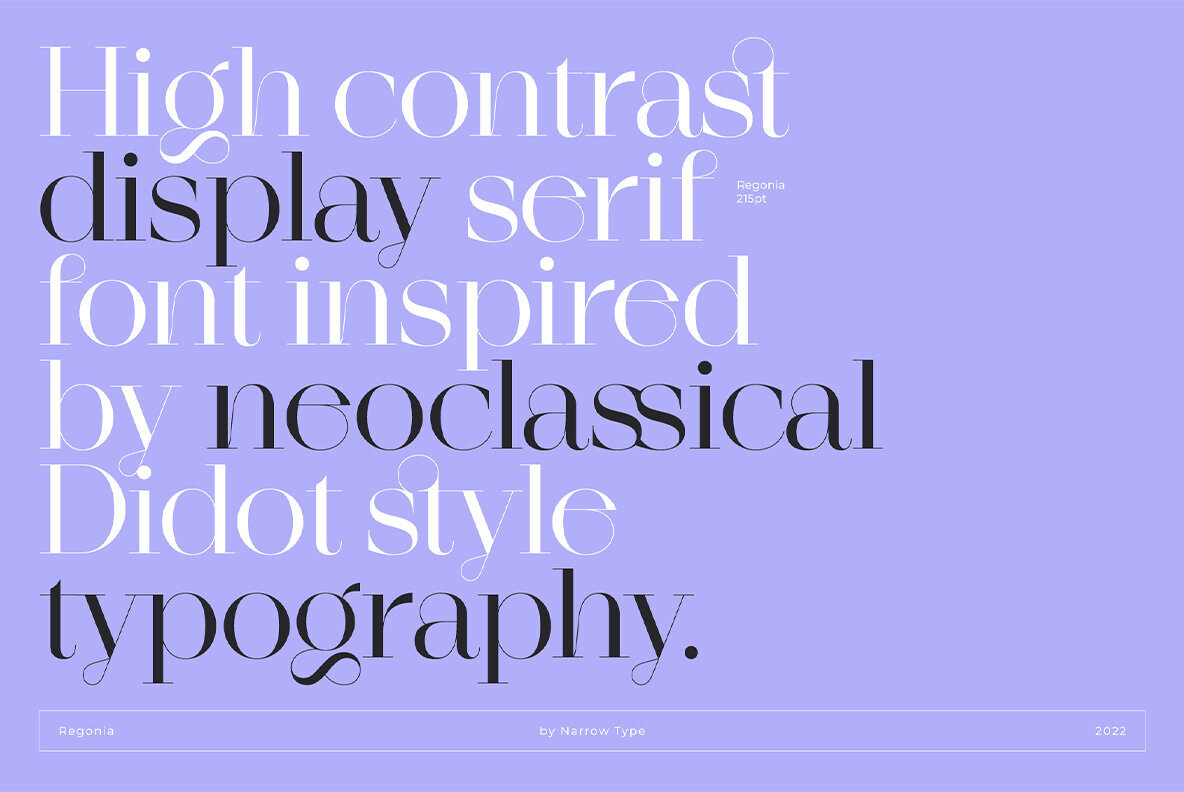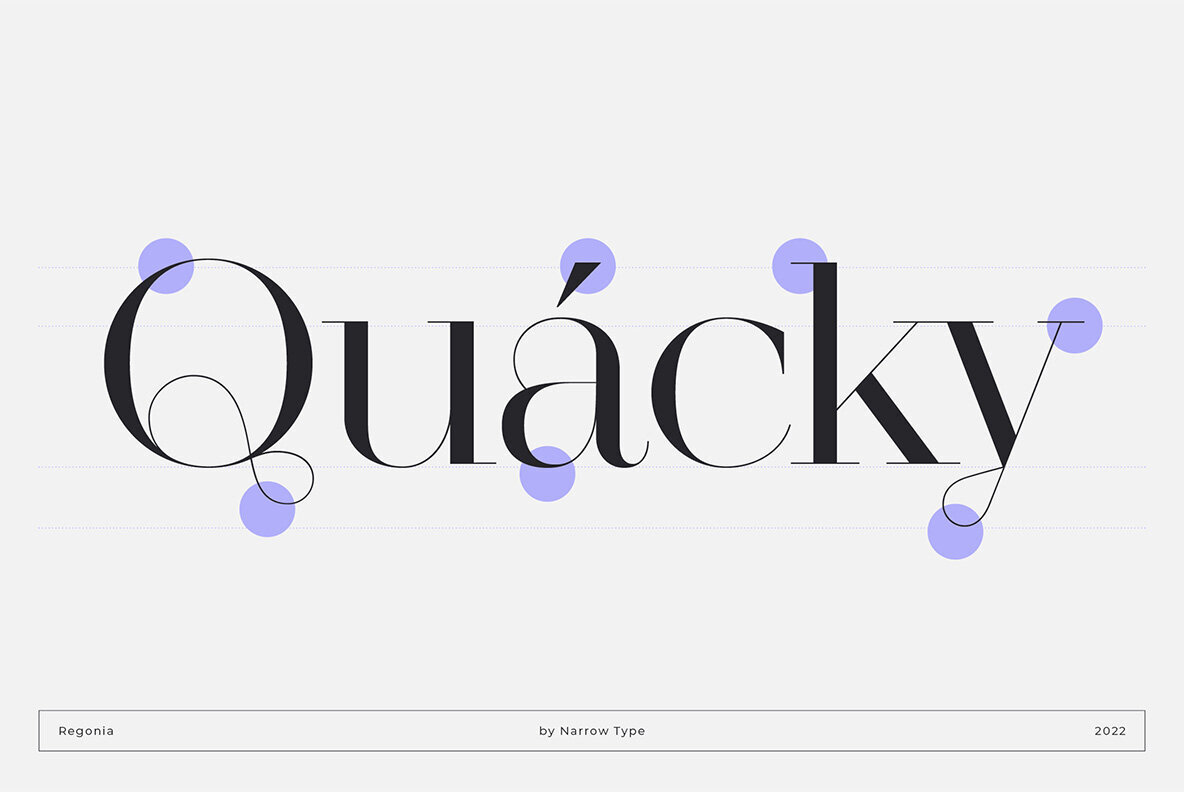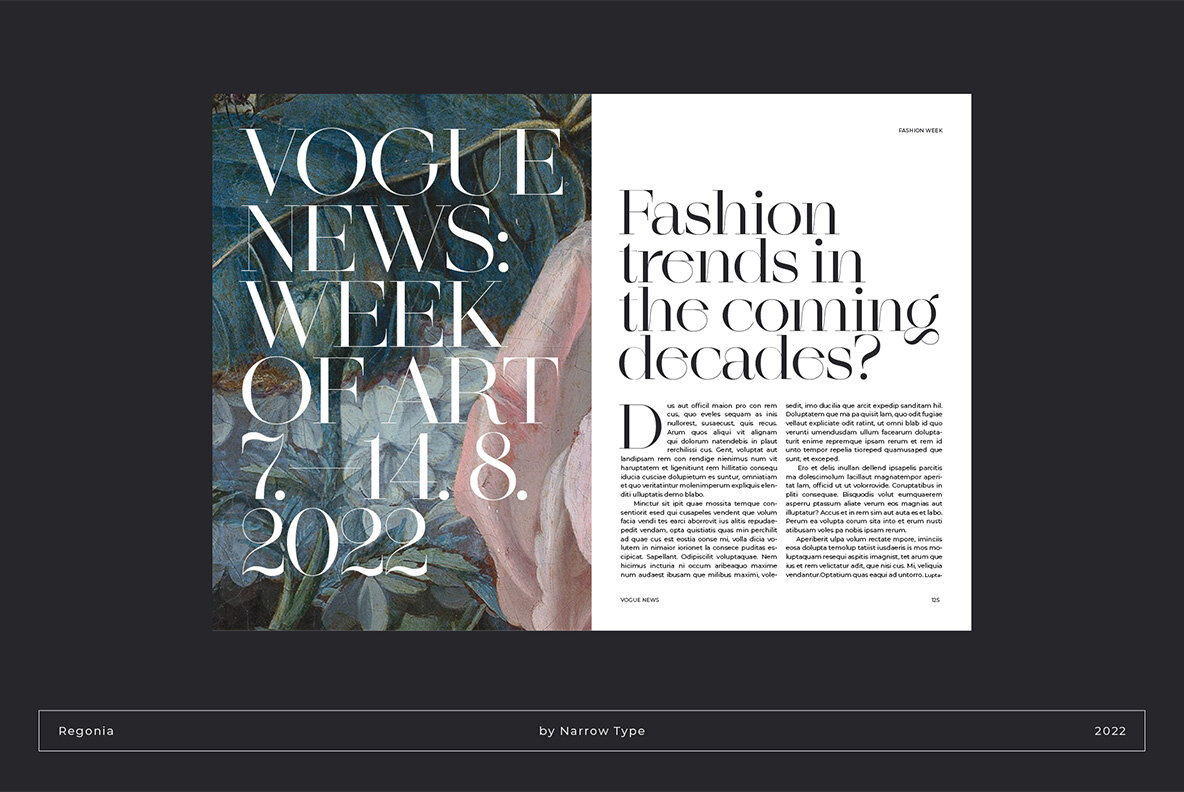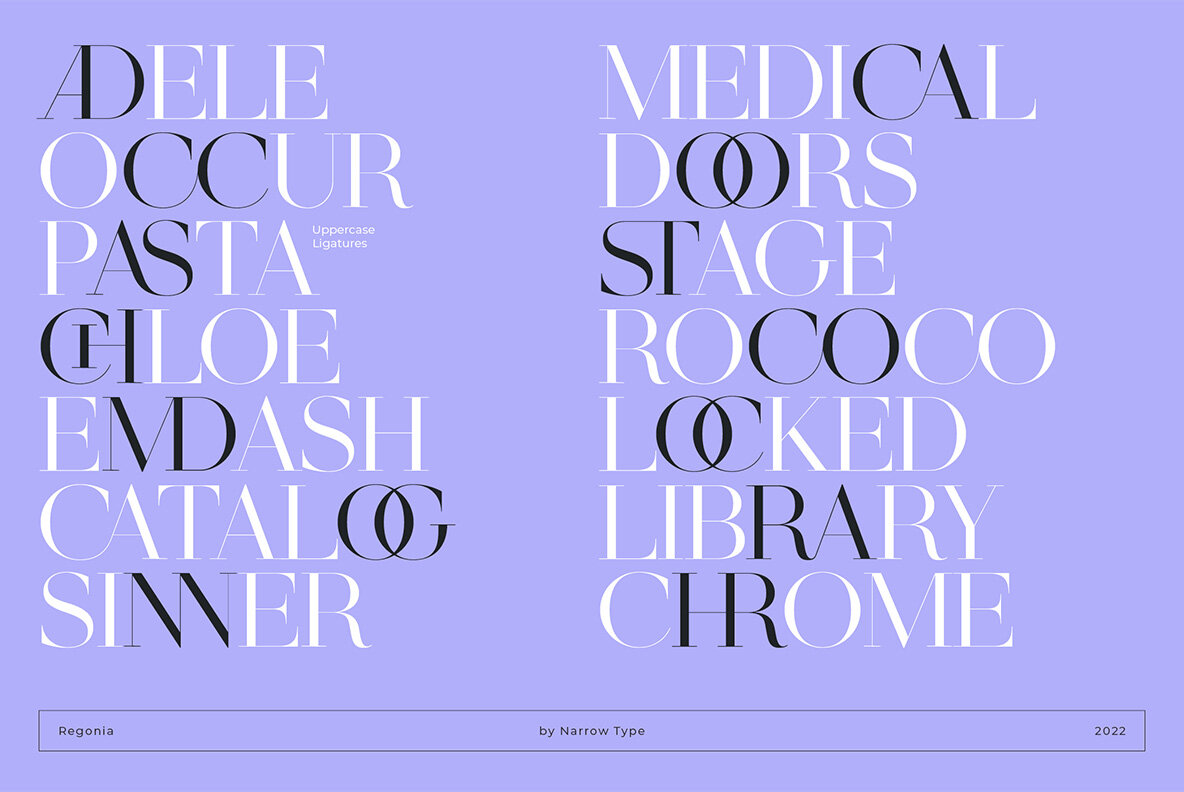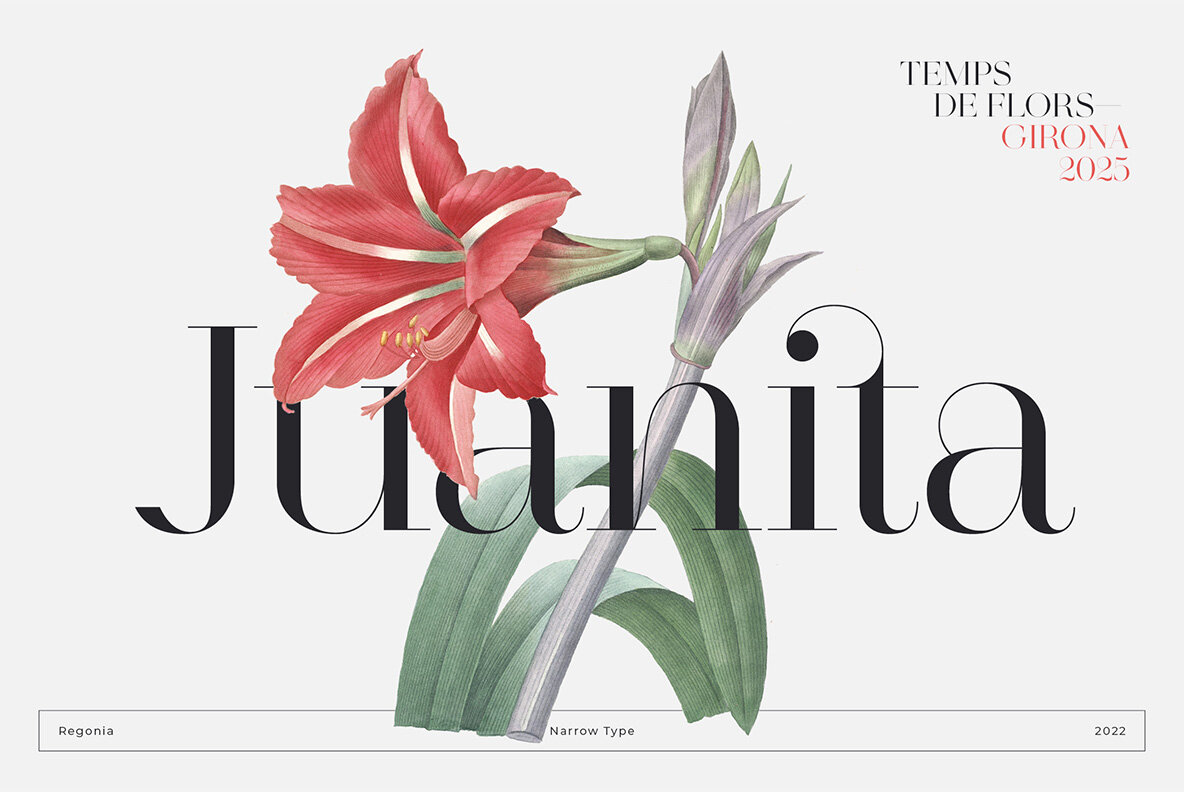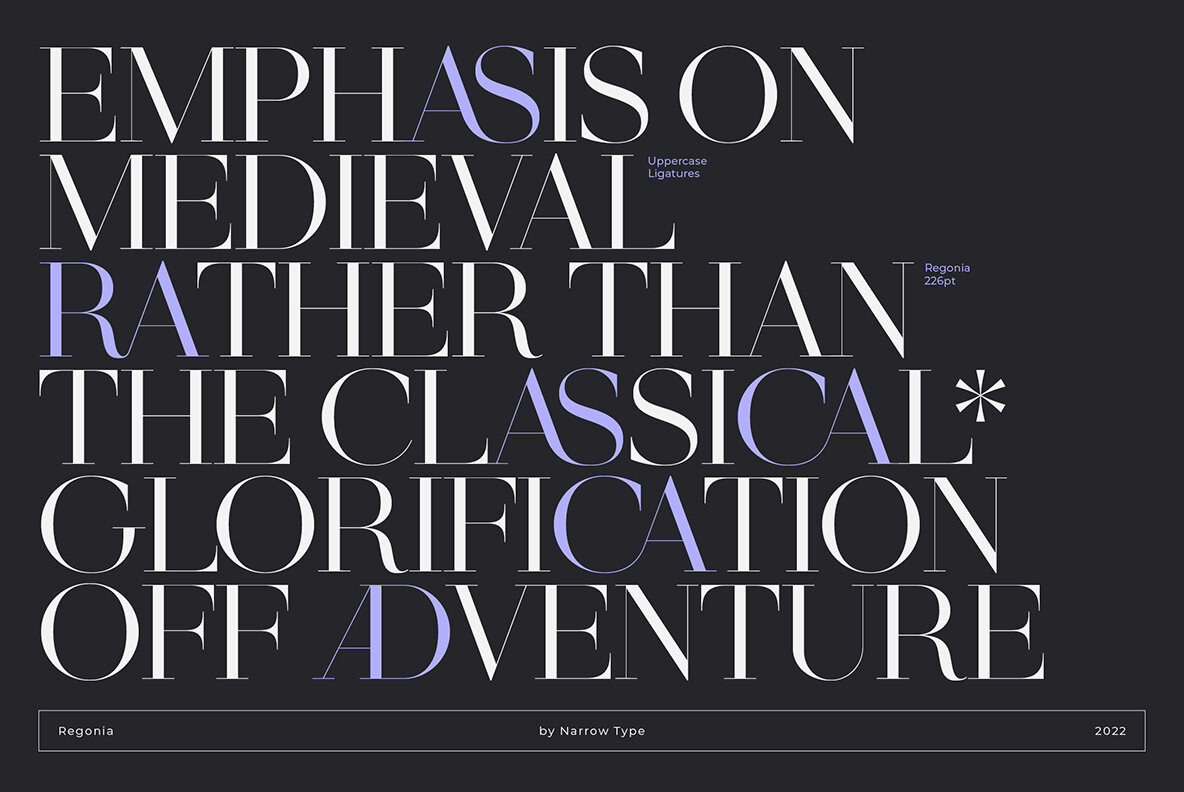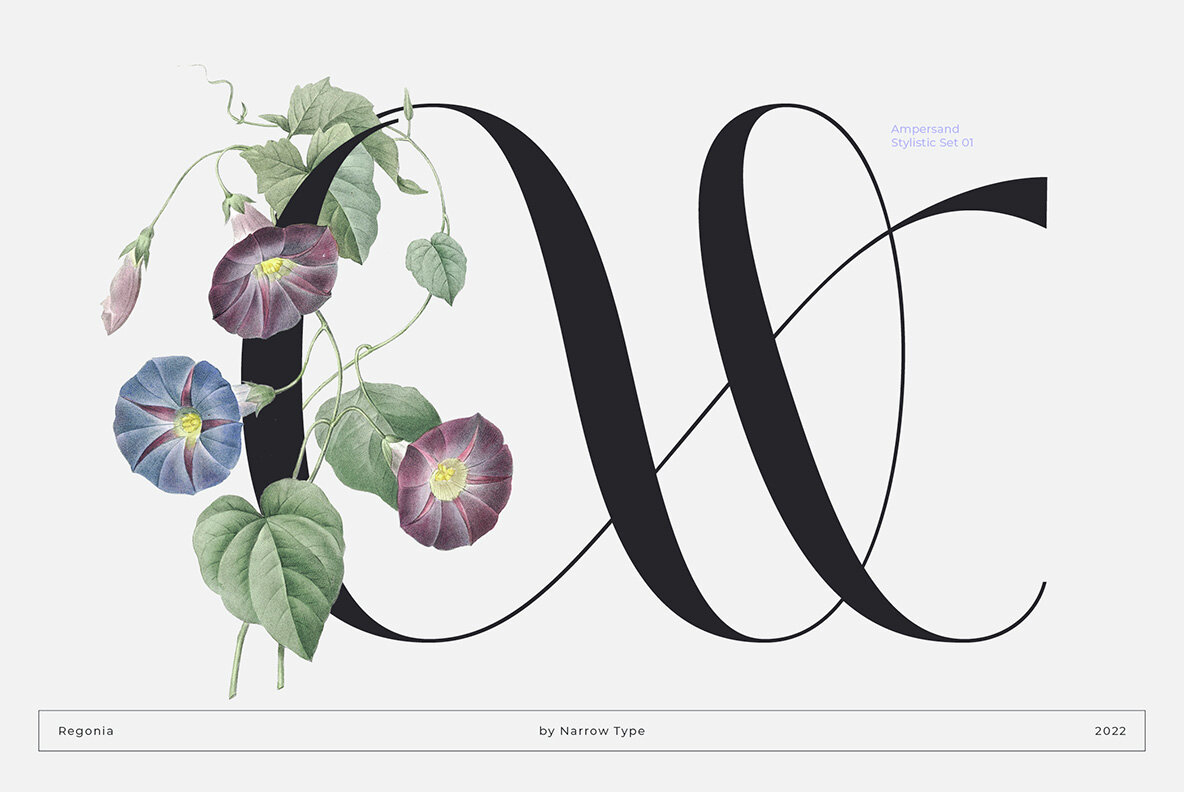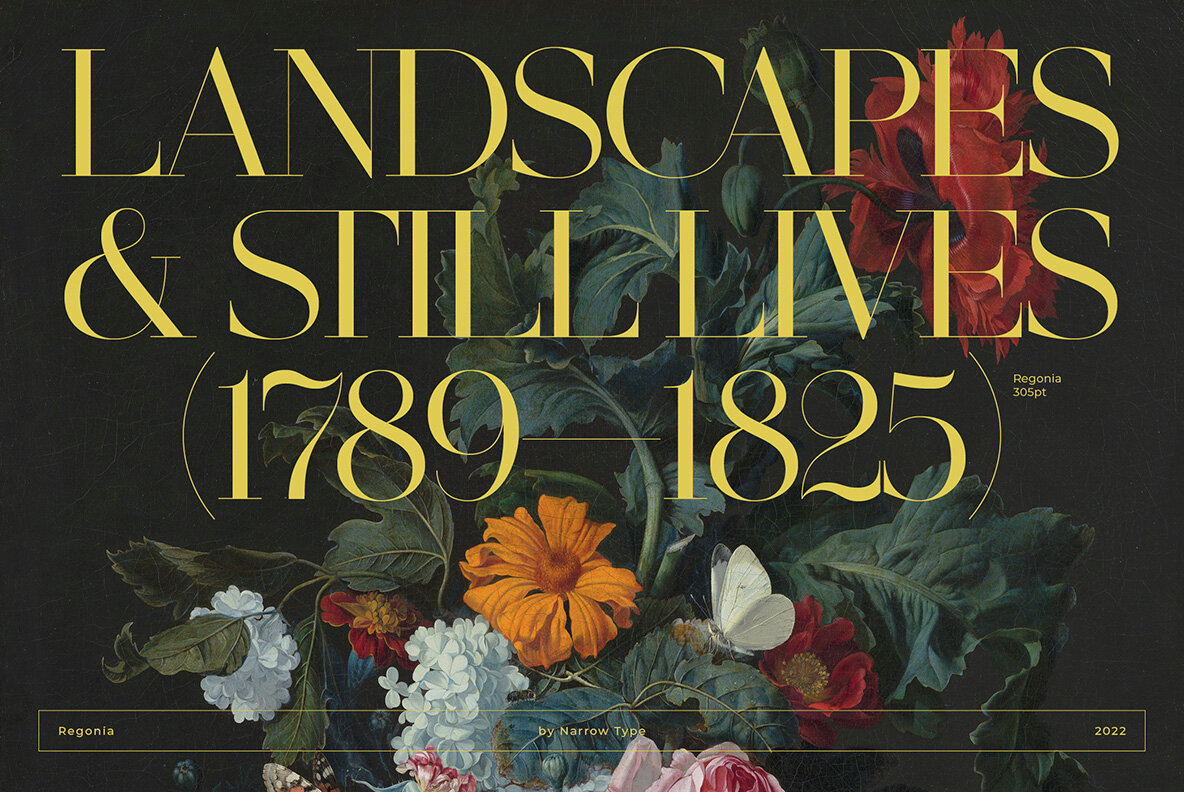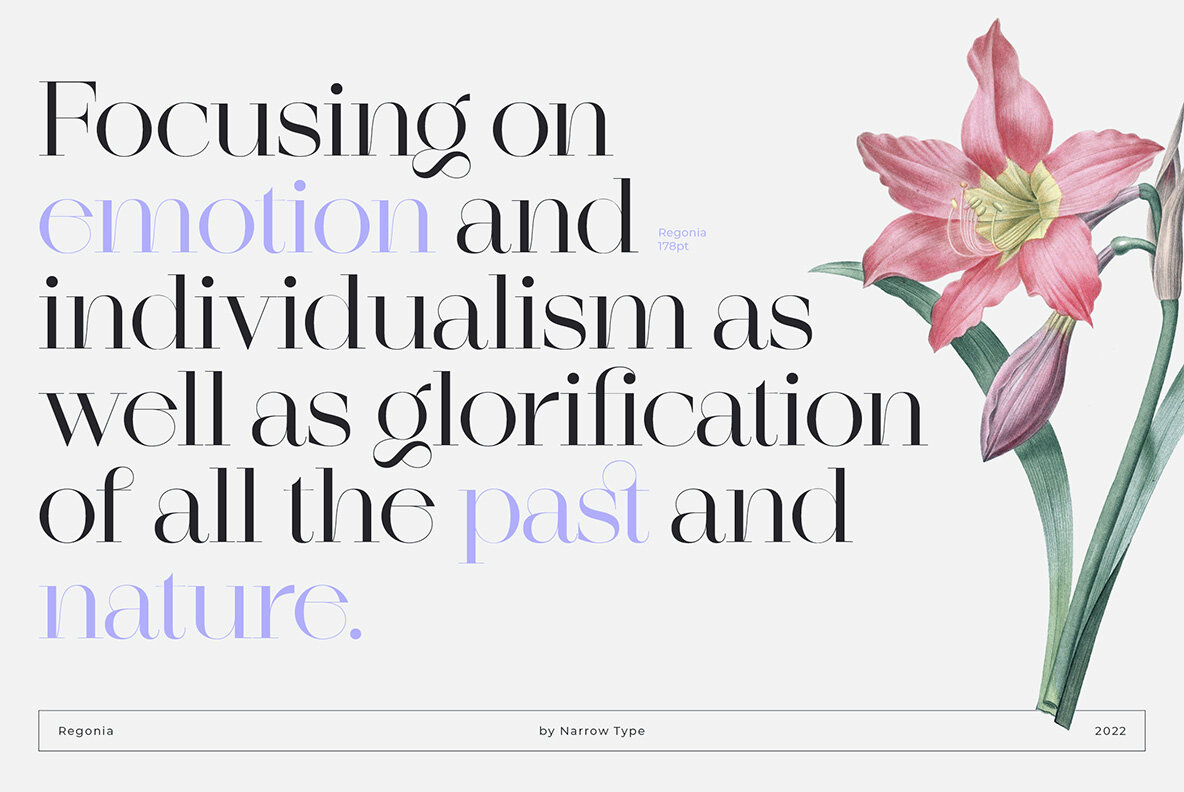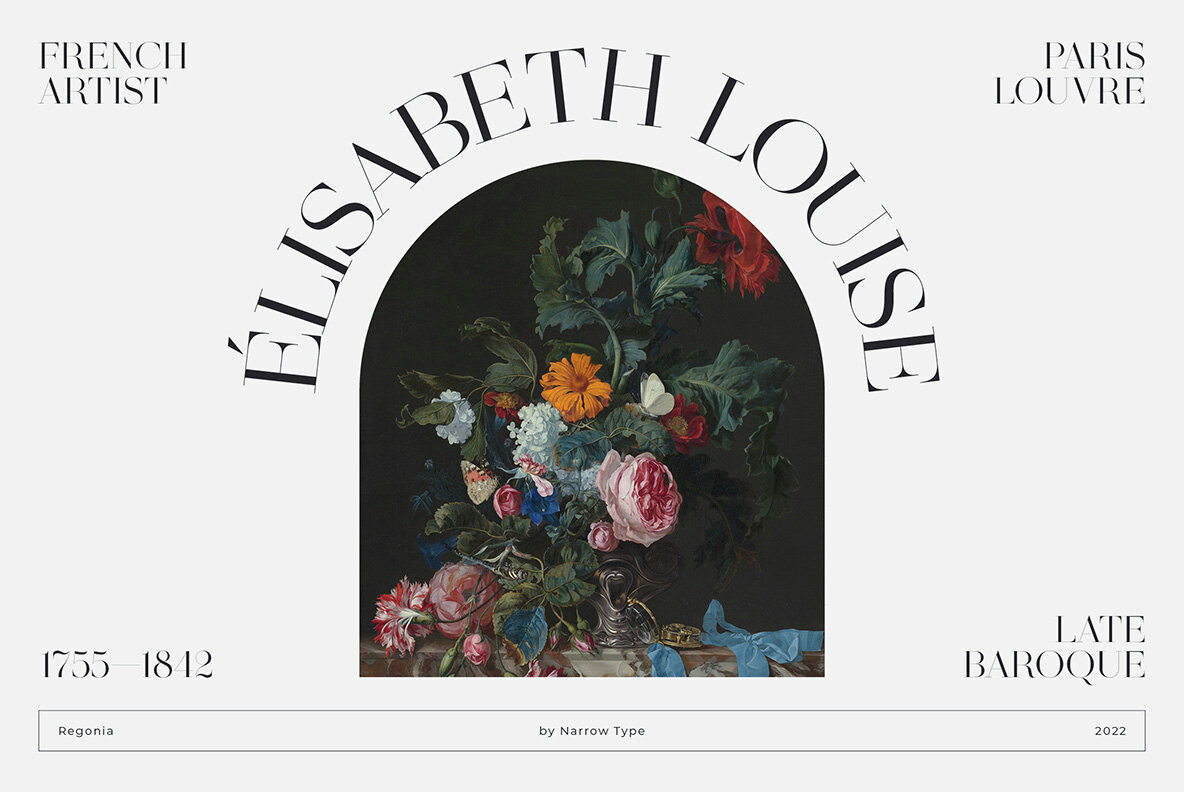
Regonia
Regonia is a high-contrast display serif typeface inspired by neoclassical Didot style typography. Thin hairlines and many unique details make Regonia an elegant and contemporary typeface.
Regonia has a large x-height and works perfectly in headlines or bigger sizes. It is also equipped with many ligatures and alternative glyphs, which will make your projects more unique.
Narrow Type is a Czech Republic based type foundry created by type and graphic designer Andrej Sevcik. Through the study of visual art, Andrej became passionate about graphic design. His interest in design led him to the creating of type and he eventually fell in love with this field. Now he enjoys every part...